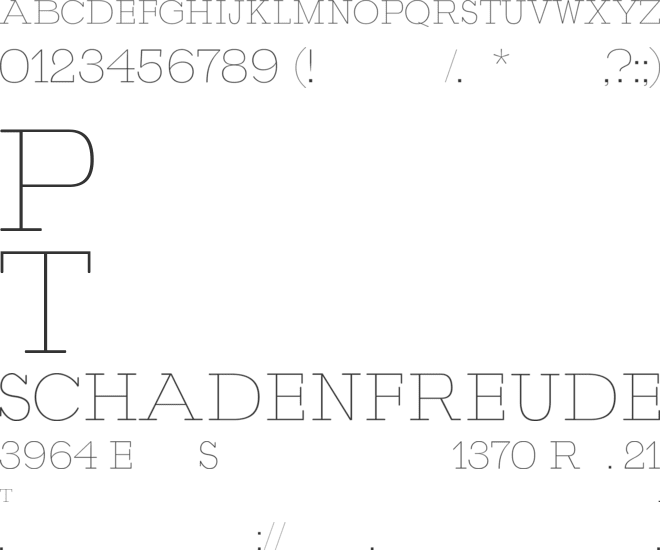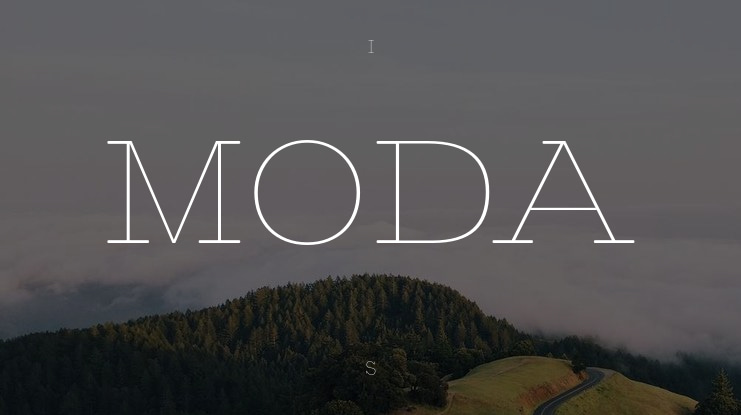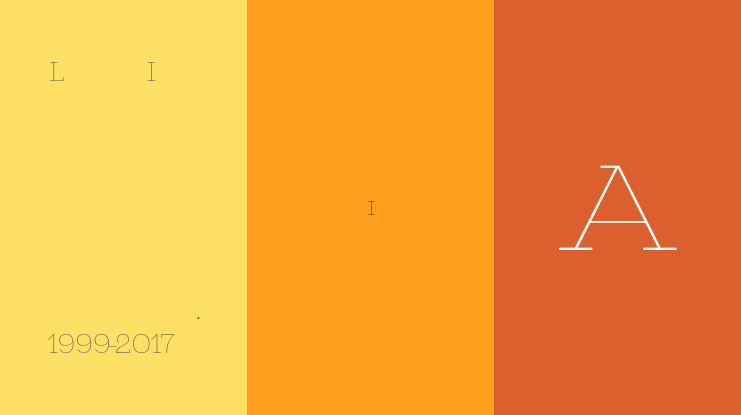
MODA Font Family
🎨 Font Name: MODA by Minimalist Art Studio
🎨 Font Description: MODA is a minimalist sans serif with soft sophistication, ideal for fashion, branding, and serene editorial design.
βœ” Complete Latin set + multilingual diacritics
βœ” Alternates, stylistic sets & ligatures
βœ” Numbers, small caps, and extended punctuation
βœ” Bonus italics and family styles